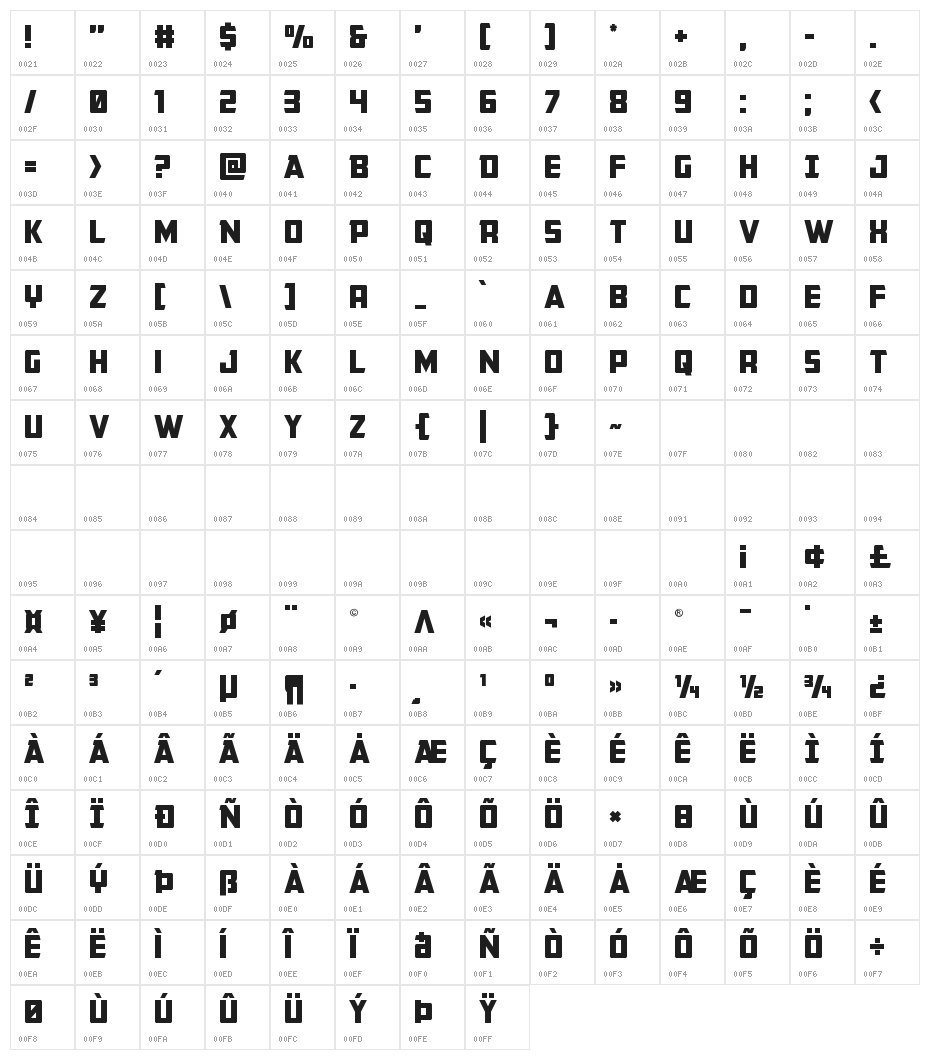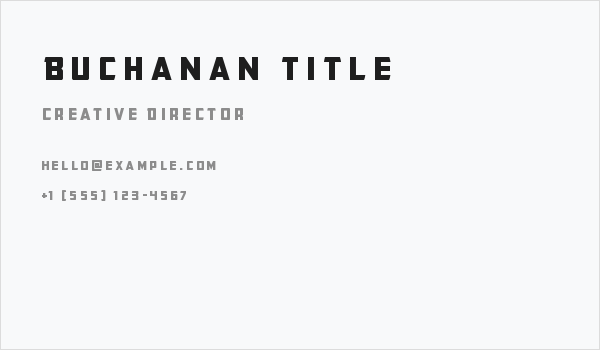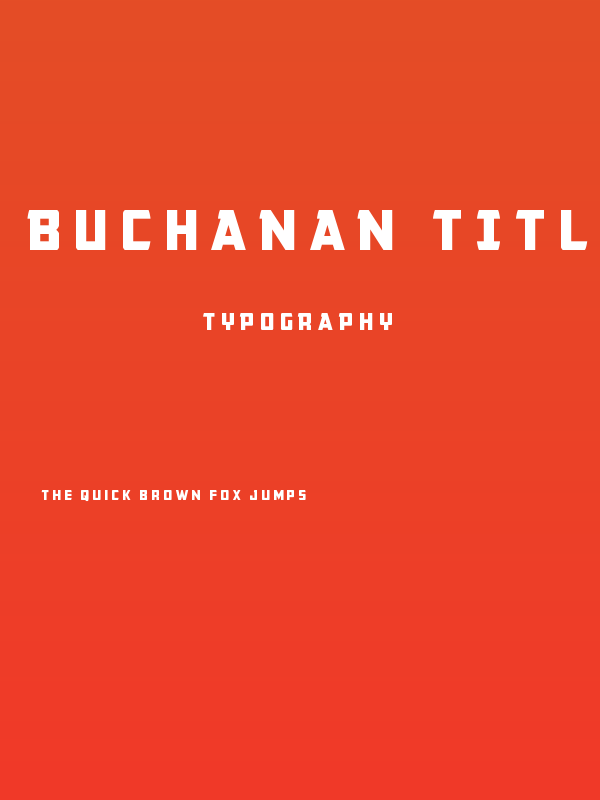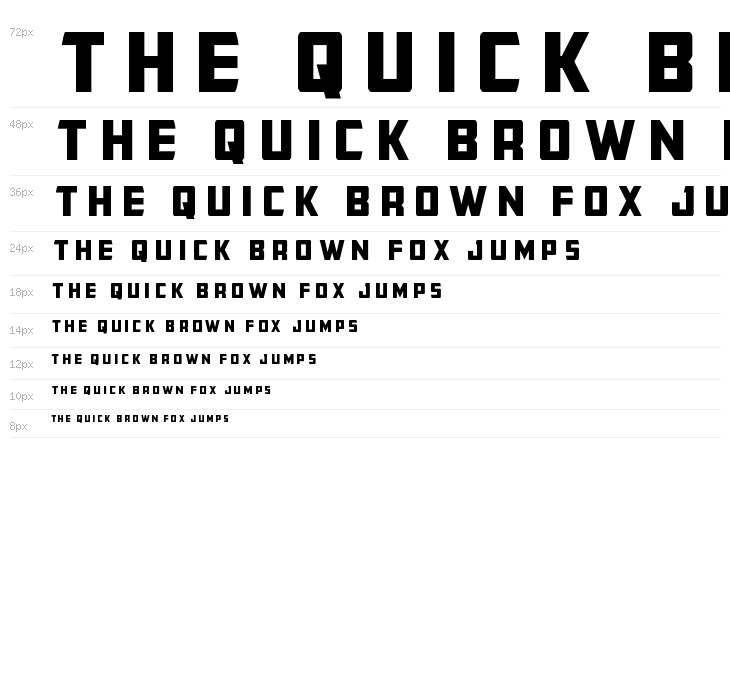
Buchanan Title Font
Buchanan Title Description
This font features bold, geometric letterforms with a strong, industrial aesthetic. The characters are blocky and angular, with consistent stroke widths that give it a uniform appearance. The uppercase and lowercase letters maintain a similar structure, enhancing its cohesive look. The numerals and special characters are designed to match the boldness and geometric style of the alphabet, making it suitable for impactful and attention-grabbing designs. The overall style is modern and assertive, ideal for projects that require a strong visual presence.
| Proposed Projects | Ideal for branding, posters, headlines, and any design that requires a strong, modern look. |